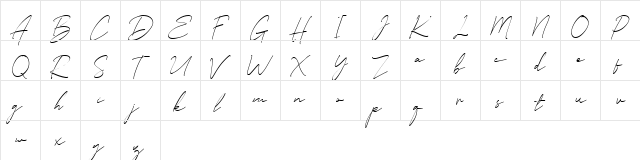
Angelic Bonques Free Script Regular
Design Context for Angelic Bonques Free Script Typeface
Angelic Bonques Free Script brings a calligraphic fluidity to the page — its connecting strokes and expressive curves give it an unmistakably human quality.
Font Pairing: Combine Angelic Bonques Free Script with a simple geometric sans for maximum contrast — the tension between flowing curves and clean structure is a classic typographic pairing.
Pro Tip: Pair Angelic Bonques Free Script with a clean sans-serif for supporting text. The contrast between fluid script and geometric structure creates an elegant typographic hierarchy.